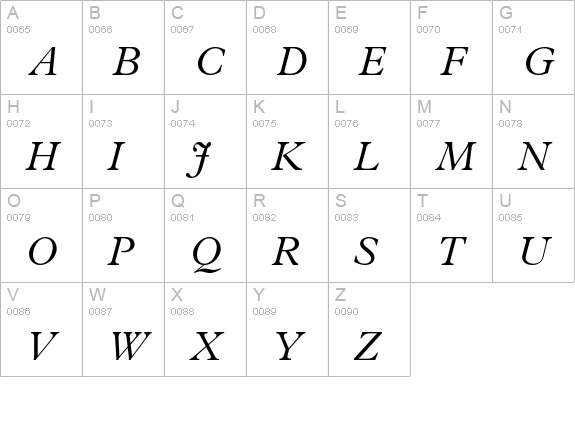
Terminus Light SSi Light Italic Font Details
Terminus Light SSi Light Italic is a refined, elegant, italic variant in the Terminus typeface family \xE2\x80\x94 well suited to elegant body text, refined sub-headings, and luxury branding.
Terminus Light SSi Light Italic font is a stunning and elegant typeface that exudes a sense of sophistication and grace. Its delicate and slanted italic design adds a touch of refinement to any project, making it perfect for both professional and creative endeavors. This font showcases a harmonious balance between its slender strokes and gentle curves, creating a truly captivating visual experience. The thin letterforms allow for easy readability, while the italic styling adds a subtle dynamic flair to the overall design. Terminus Light SSi Light Italic font is the epitome of versatility. It seamlessly complements various design styles, whether it be for invitations, logos, branding, or editorial layouts. Its timeless appeal ensures that it will never go out of fashion, making it a valuable asset for any designer or typographer. But what's even better is that this remarkable font is available for free download at FontsMarket.com. With just a few clicks, you can effortlessly add Terminus Light SSi Light Italic to your font collection, opening up endless creative possibilities. FontsMarket.com is a trusted source for high-quality fonts, and their commitment to providing exceptional fonts at no cost makes this font even more enticing. So, why wait? Enhance your designs with Terminus Light SSi Light Italic font today. Its graceful aesthetic and freely available nature make it a must-have for every designer, ensuring that your creations will stand out from the crowd with a touch of elegance and sophistication.